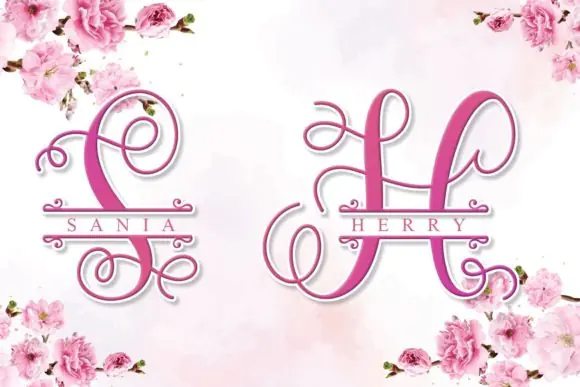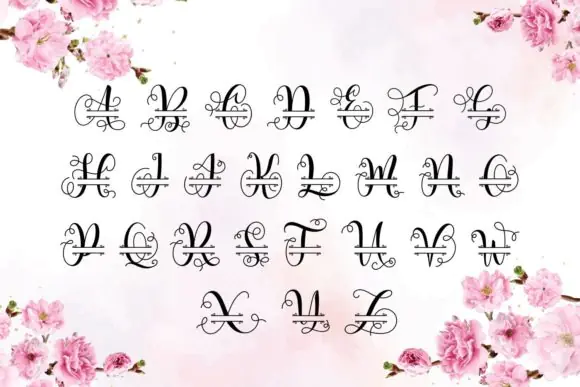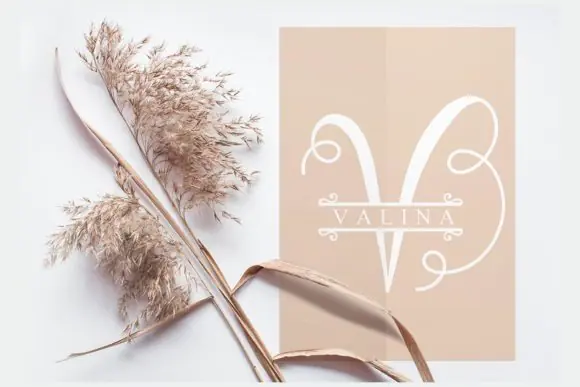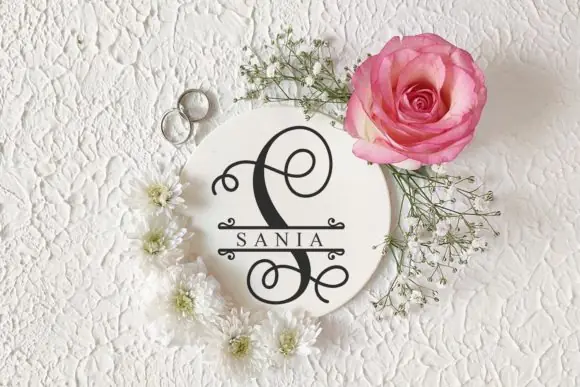
Create beautiful, elegant, and eye-catching designs with Alina Monogram Font, a charming decorative typeface made for projects that need a graceful and artistic touch. With its authentic feel and stylish decorative appearance, this font is perfect for creating designs that look refined, feminine, romantic, and visually memorable.
Alina Monogram Font is ideal for designers, crafters, invitation makers, stationery creators, small business owners, branding designers, and digital product sellers who want a lovely font for elegant and personalized creative projects. It works beautifully for invitations, greeting cards, thank-you cards, save-the-date cards, wedding stationery, bridal shower designs, social media posts, monograms, logos, stickers, labels, packaging, wall art, and printable crafts.
This font helps bring a polished and decorative look to both personal and commercial-style design projects. Whether you are creating a wedding invitation, boutique logo, romantic greeting card, elegant stationery set, personalized monogram, or stylish social media graphic, Alina Monogram Font adds charm and beauty to your typography.
Its decorative personality makes it especially useful for wedding themes, feminine branding, handmade products, personalized gifts, elegant printables, and creative stationery designs.
Key Style Features